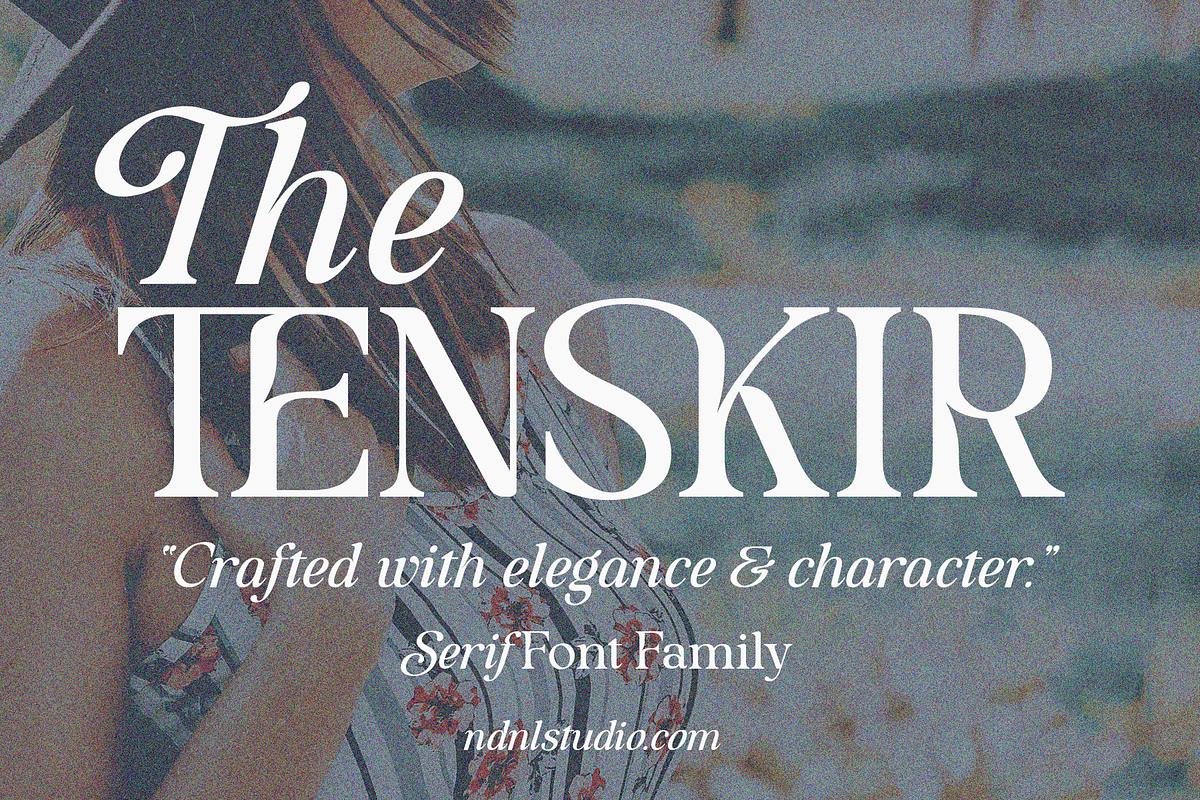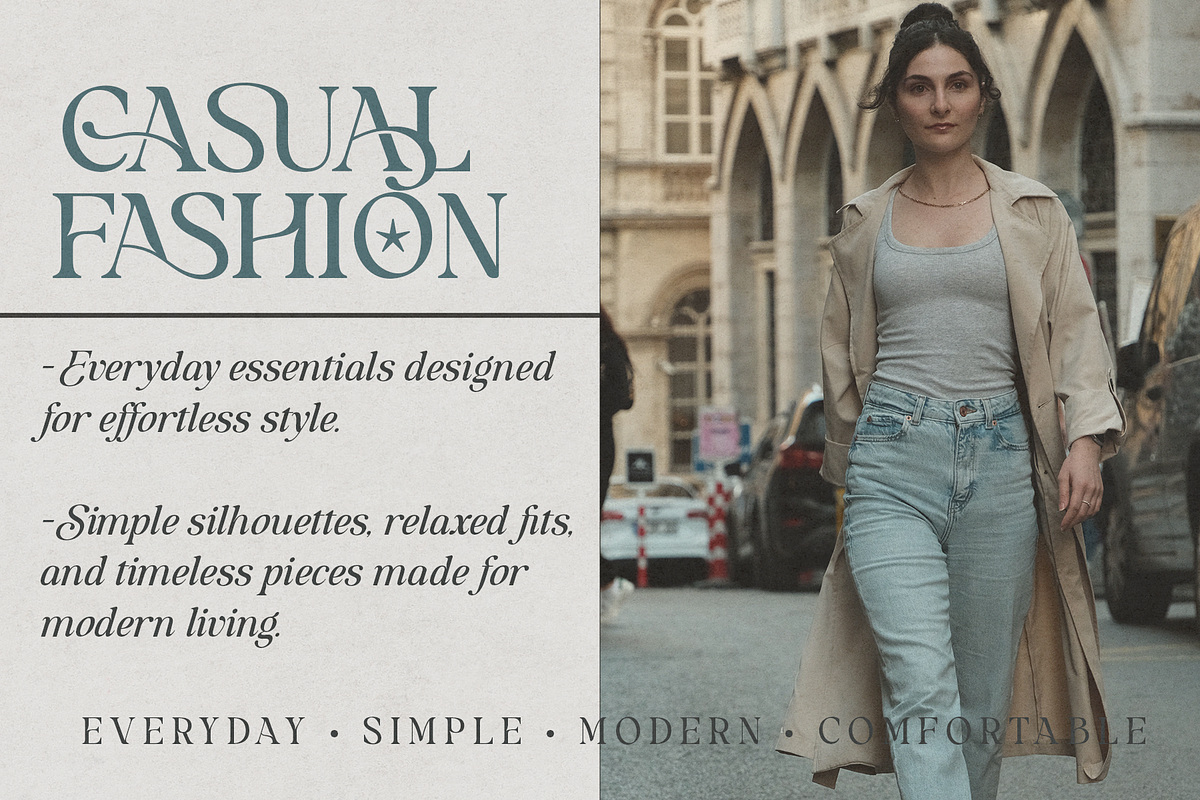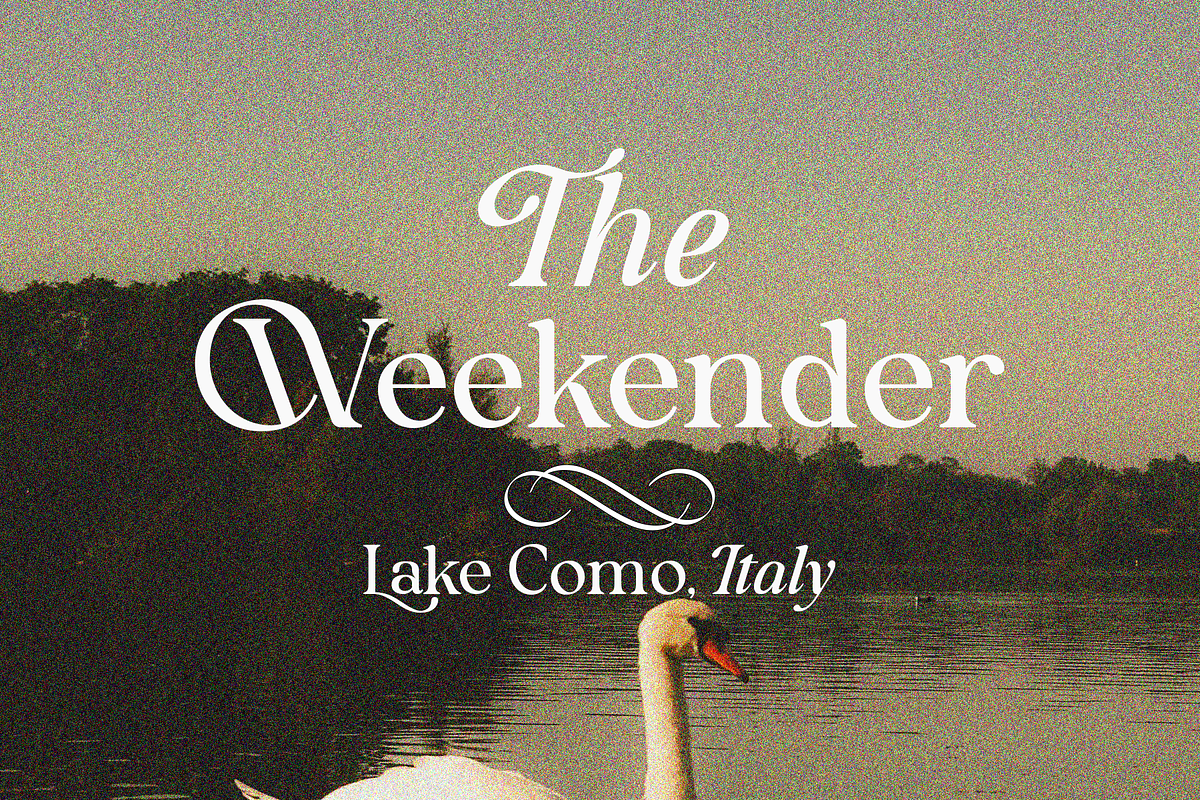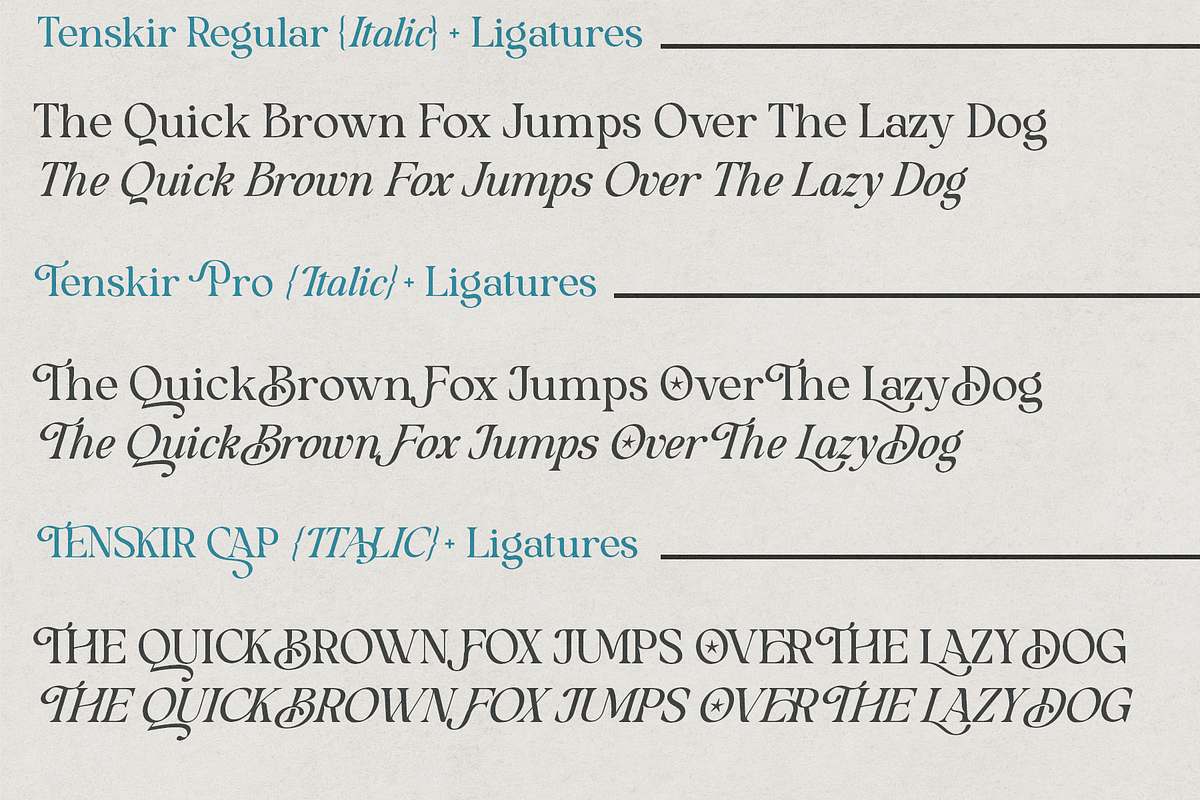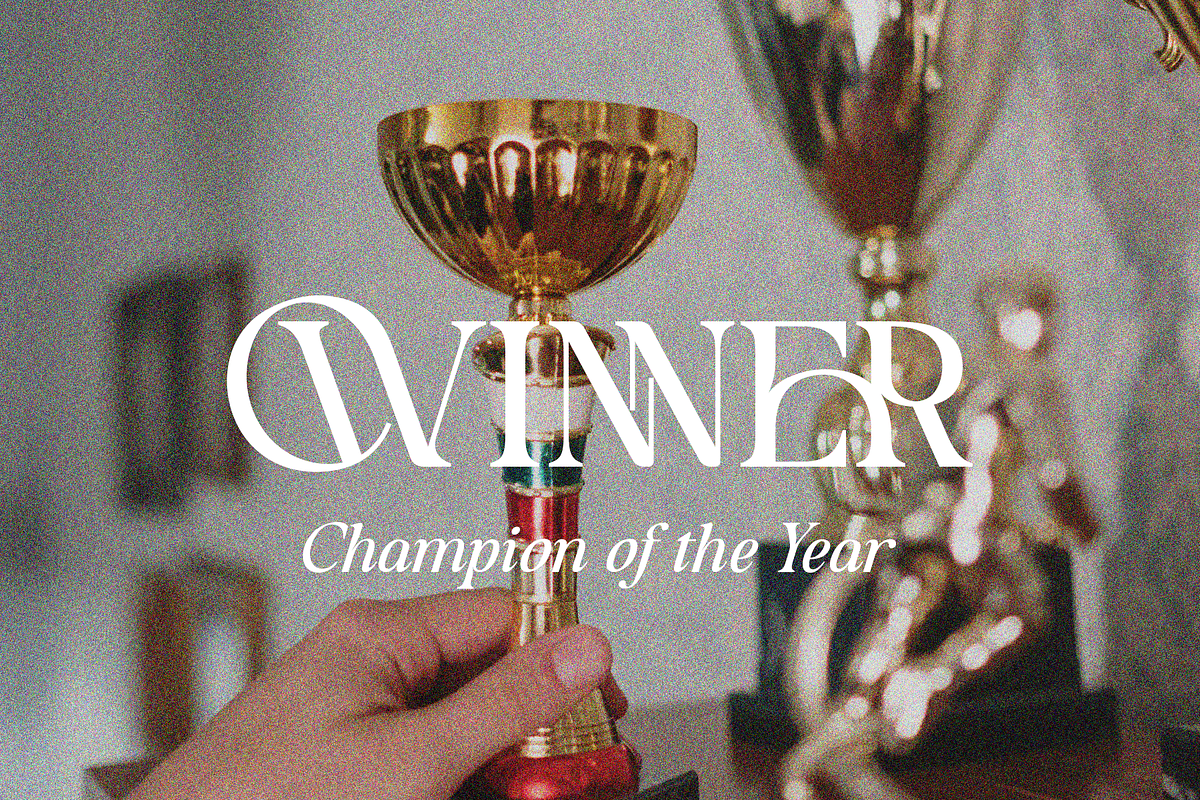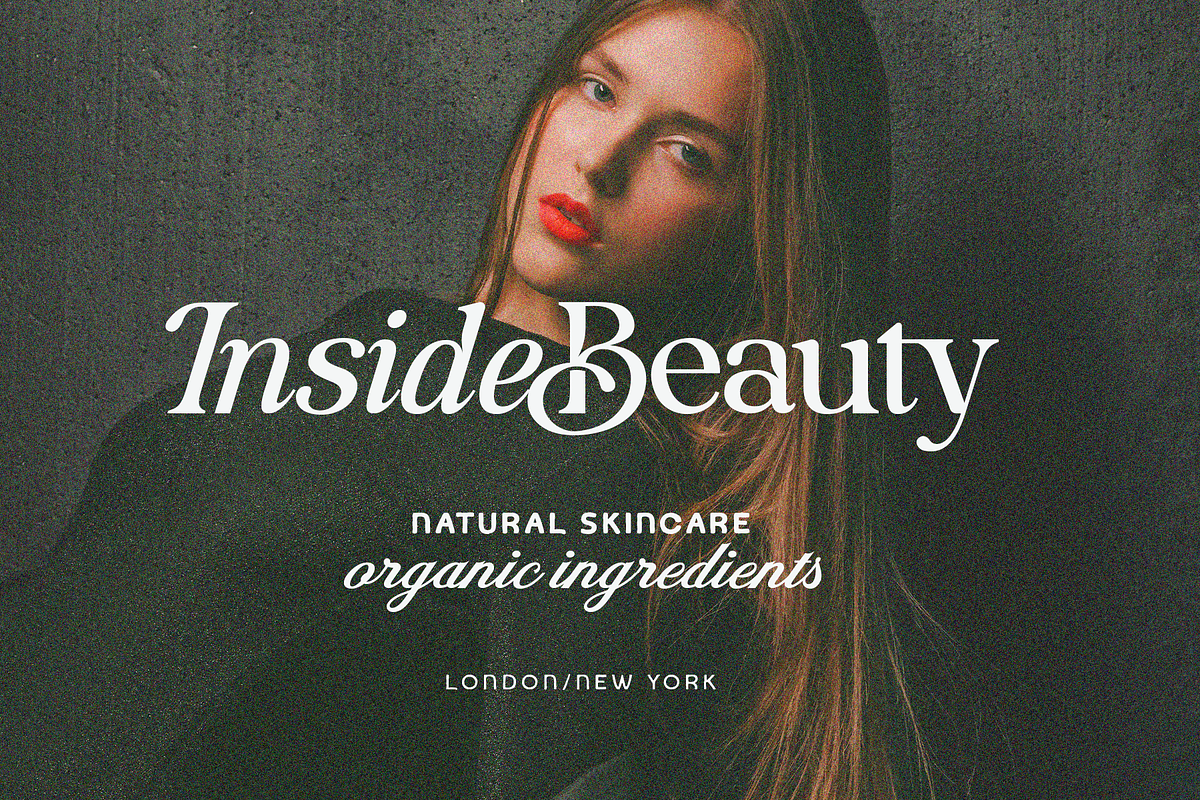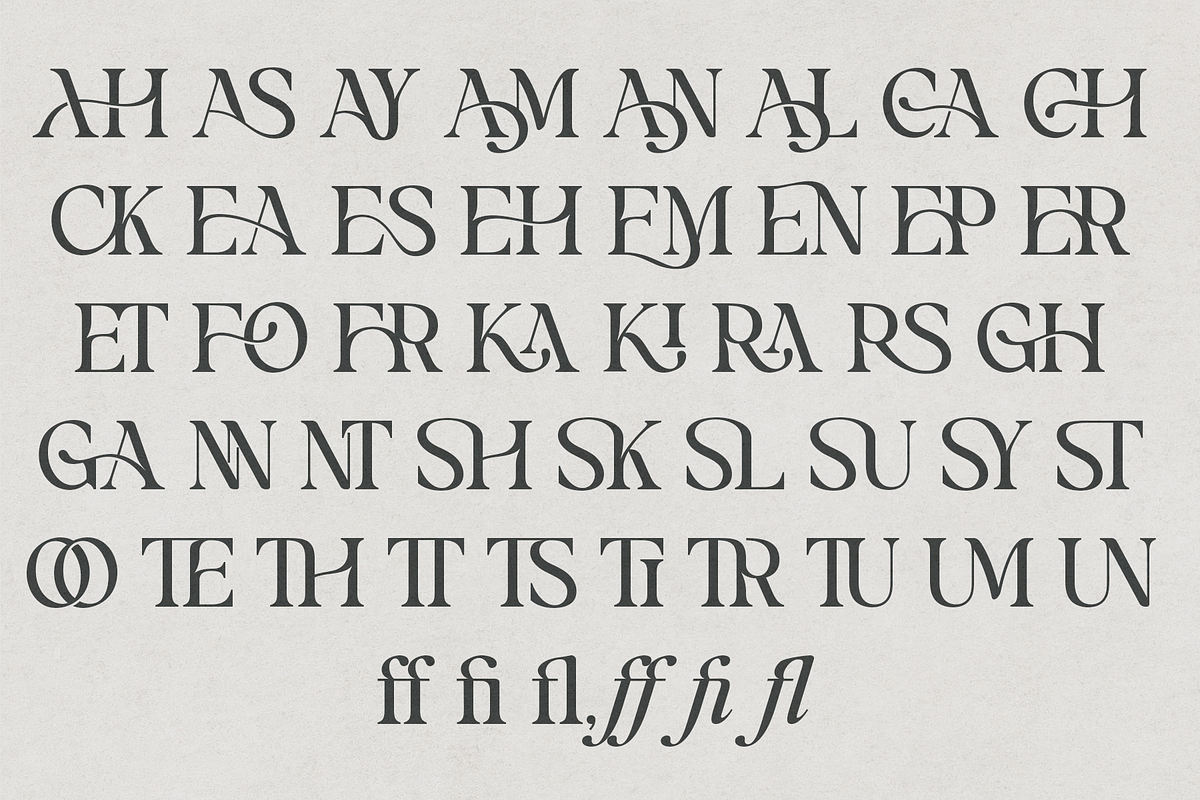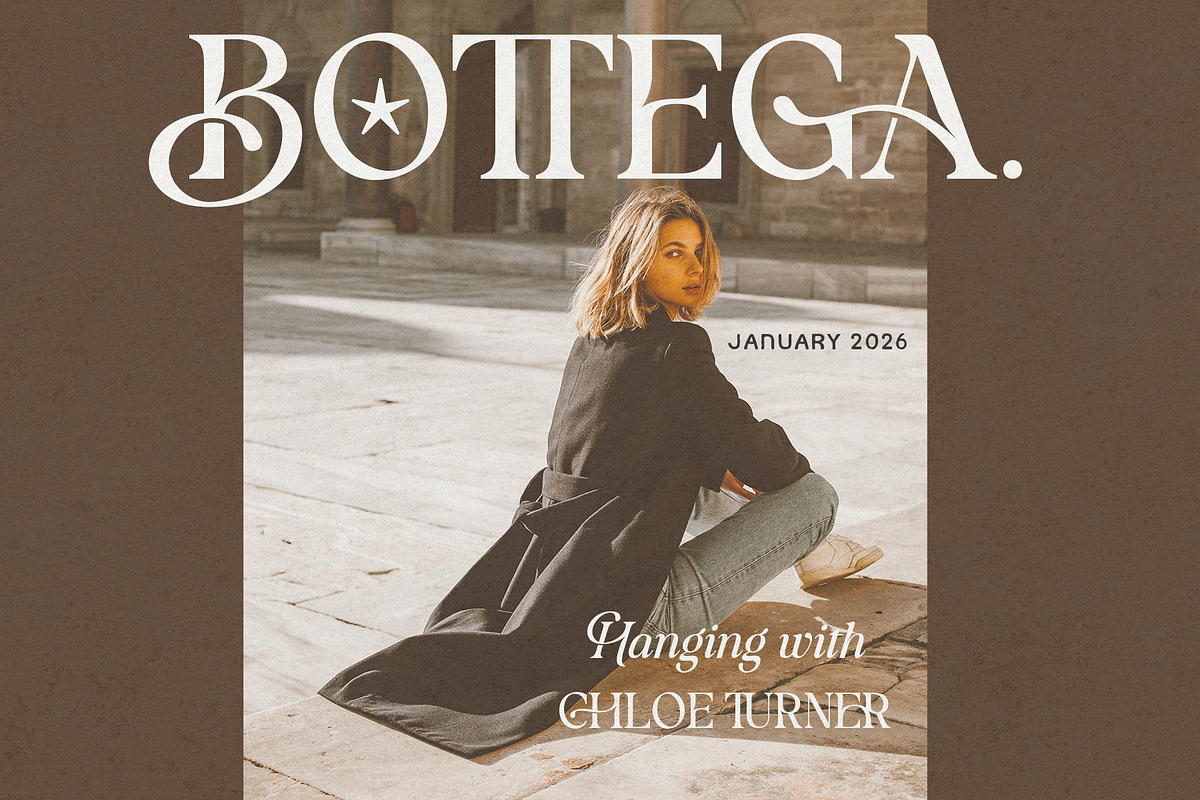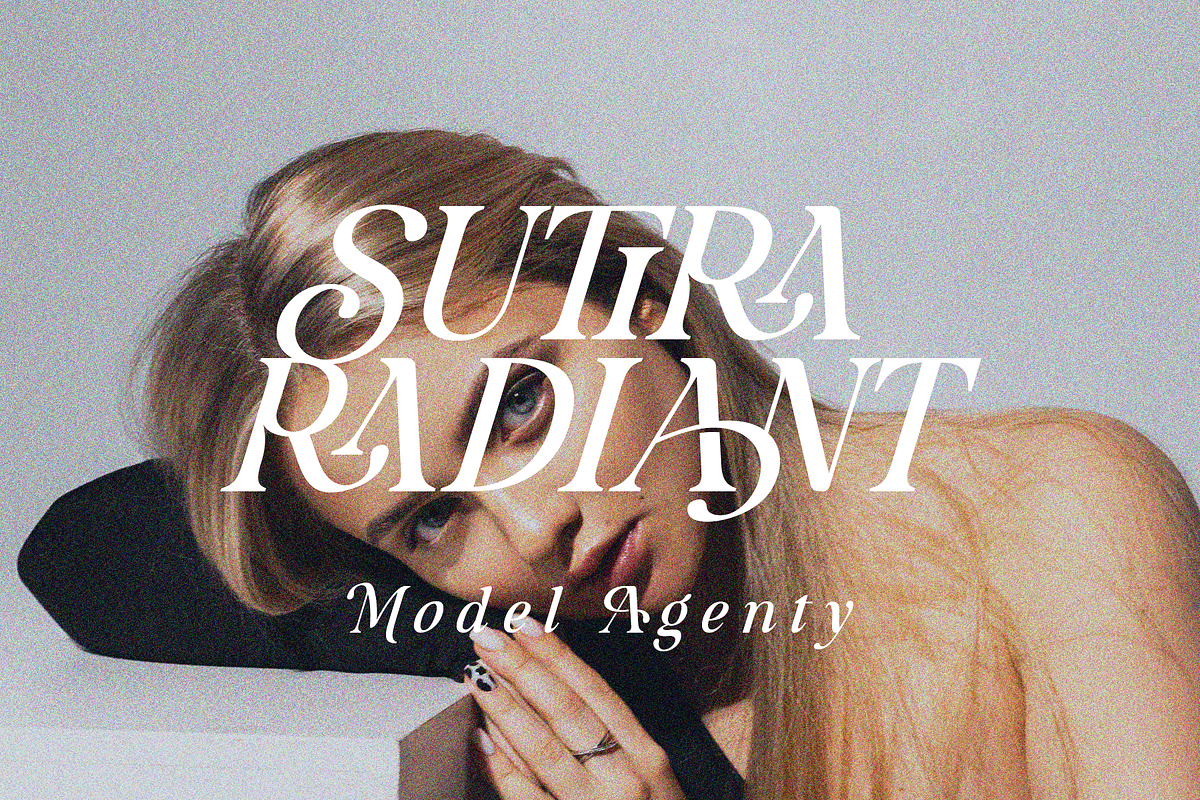
Tenskir - Serif Font
Tenskir is an elegant serif font family crafted with a refined blend of classic character and contemporary style. Its graceful curves, distinctive letterforms, and balanced proportions create a sophisticated yet expressive appearance.
With its editorial-inspired aesthetic, Tenskir is perfect for creating striking headlines, fashion branding, beauty projects, magazine layouts, wedding stationery, invitations, packaging, and other designs that call for an elegant and memorable typographic presence.
– Ligatures